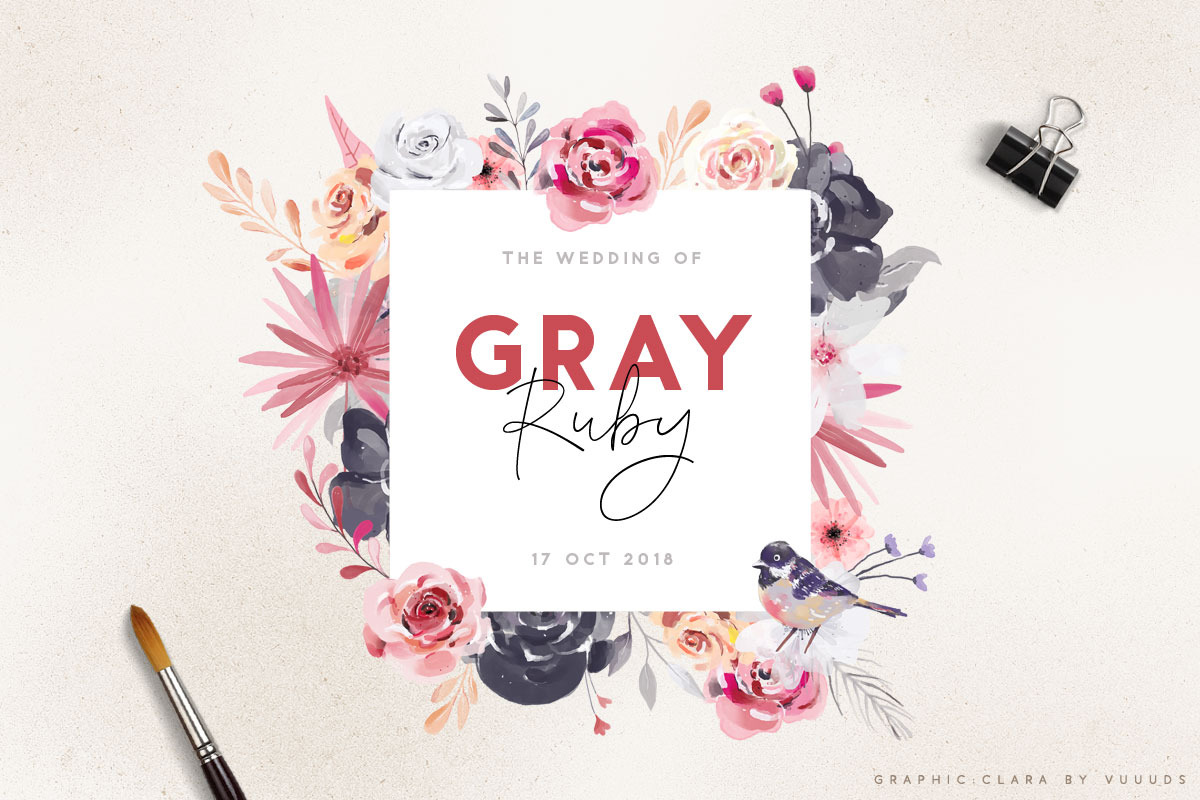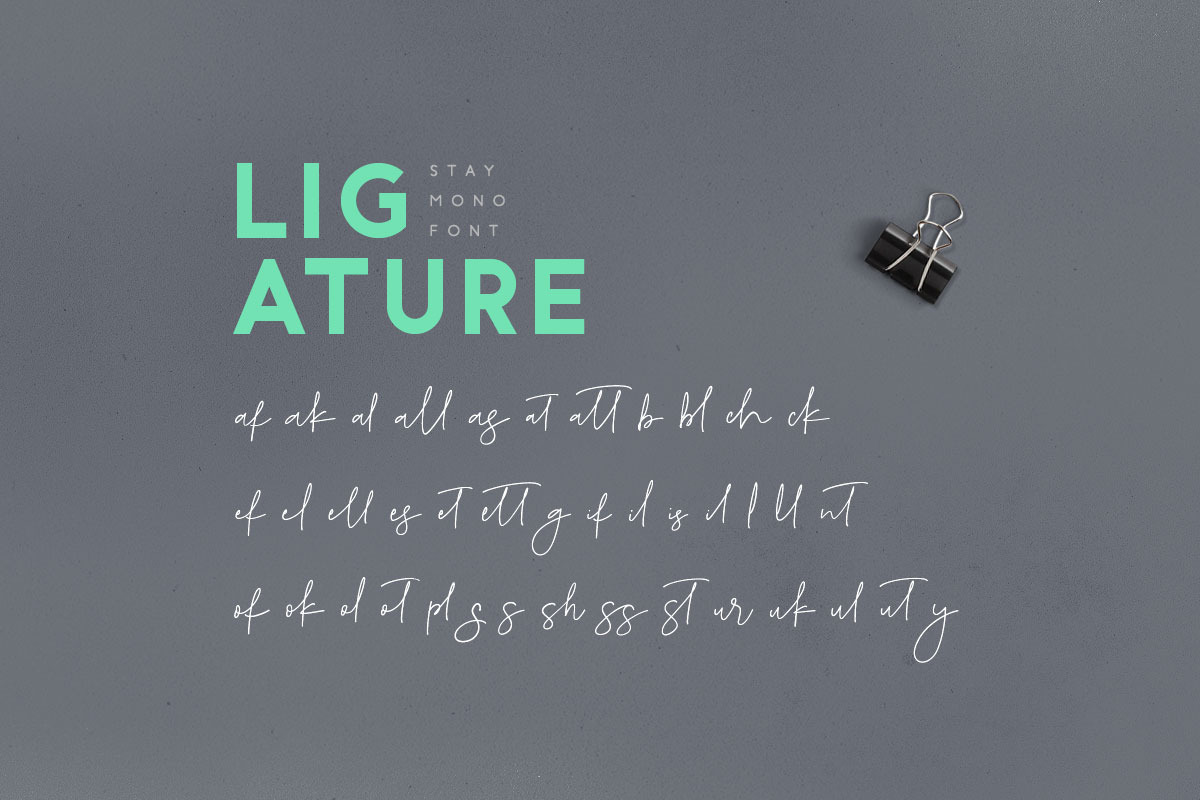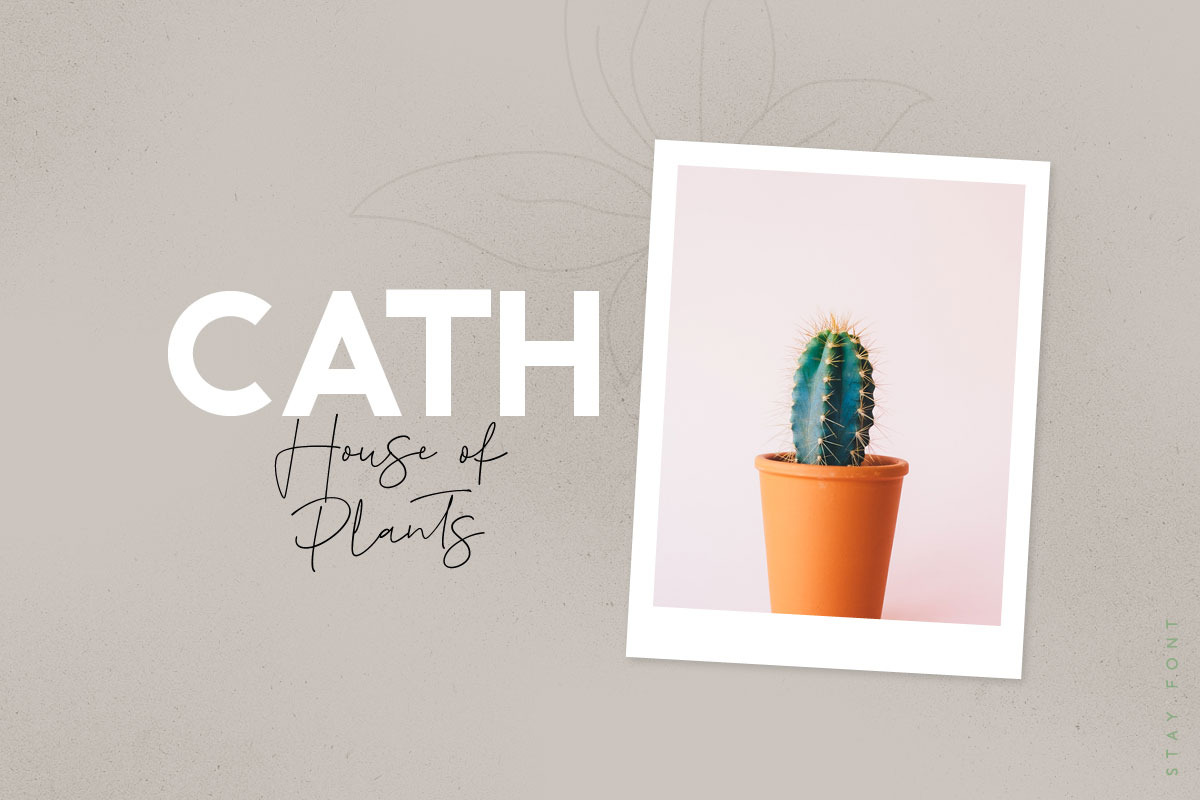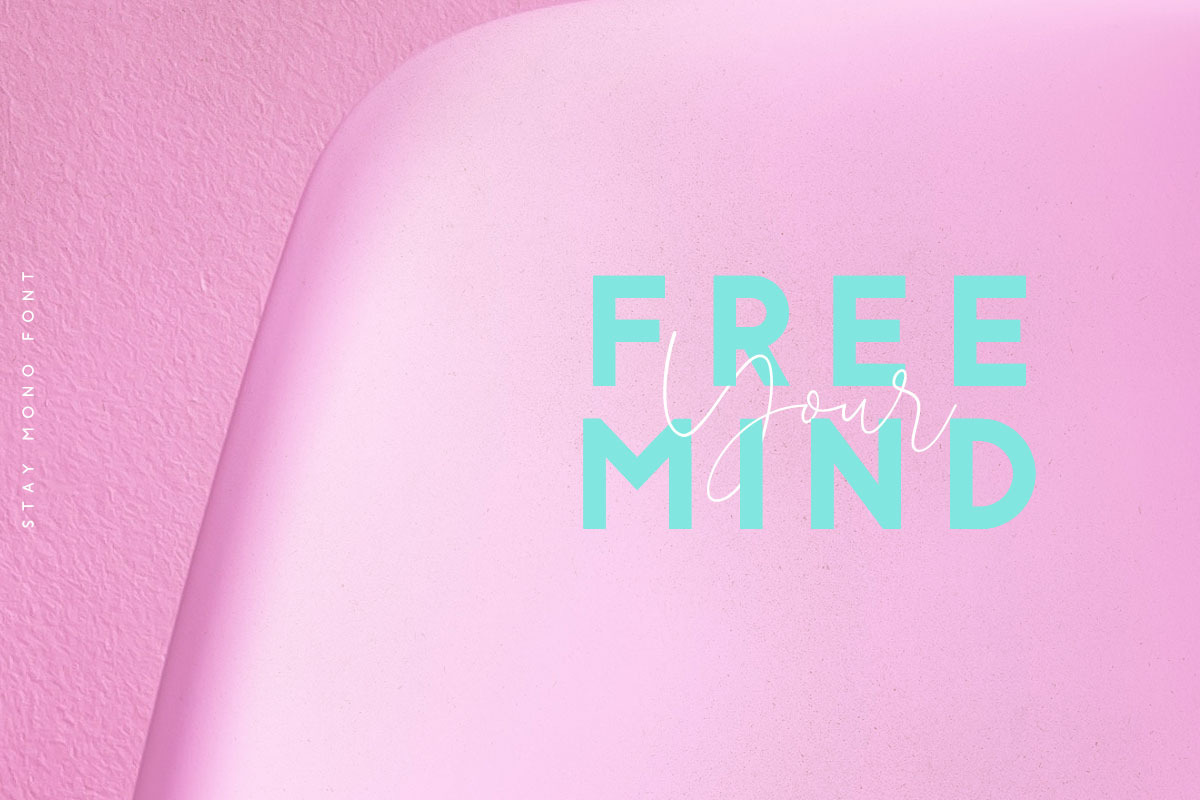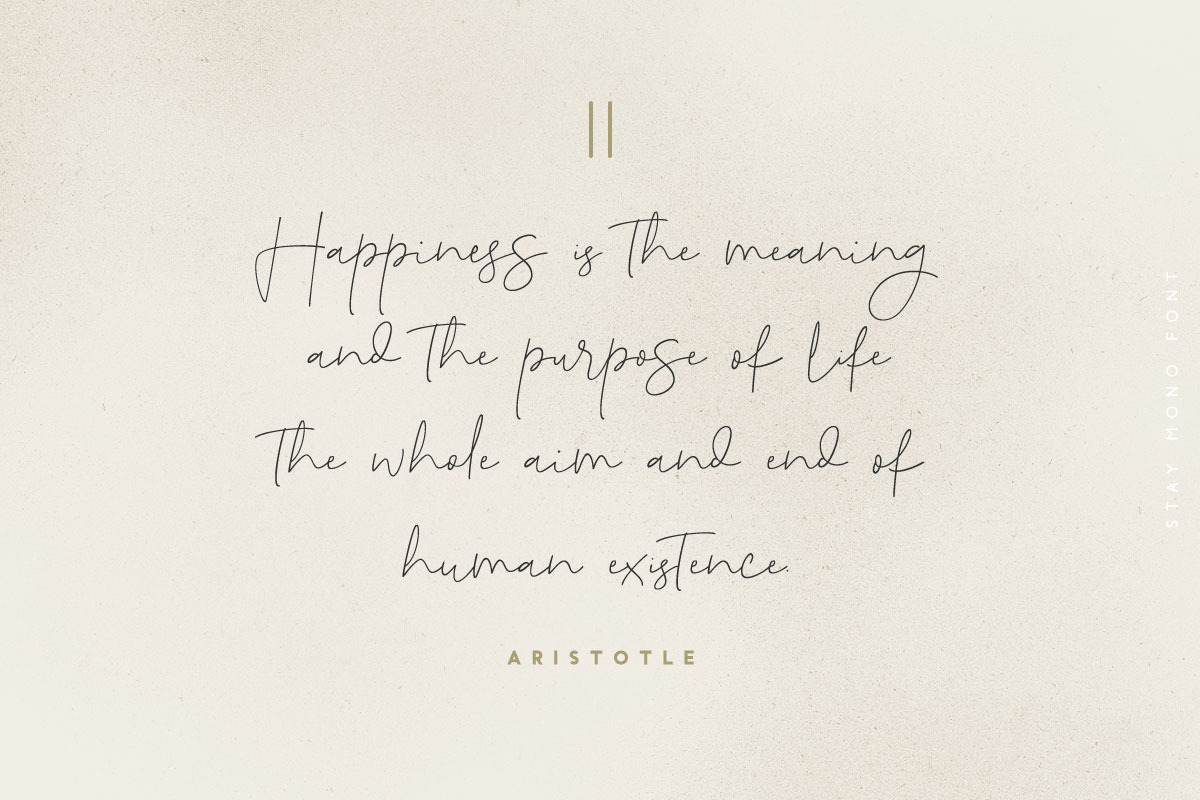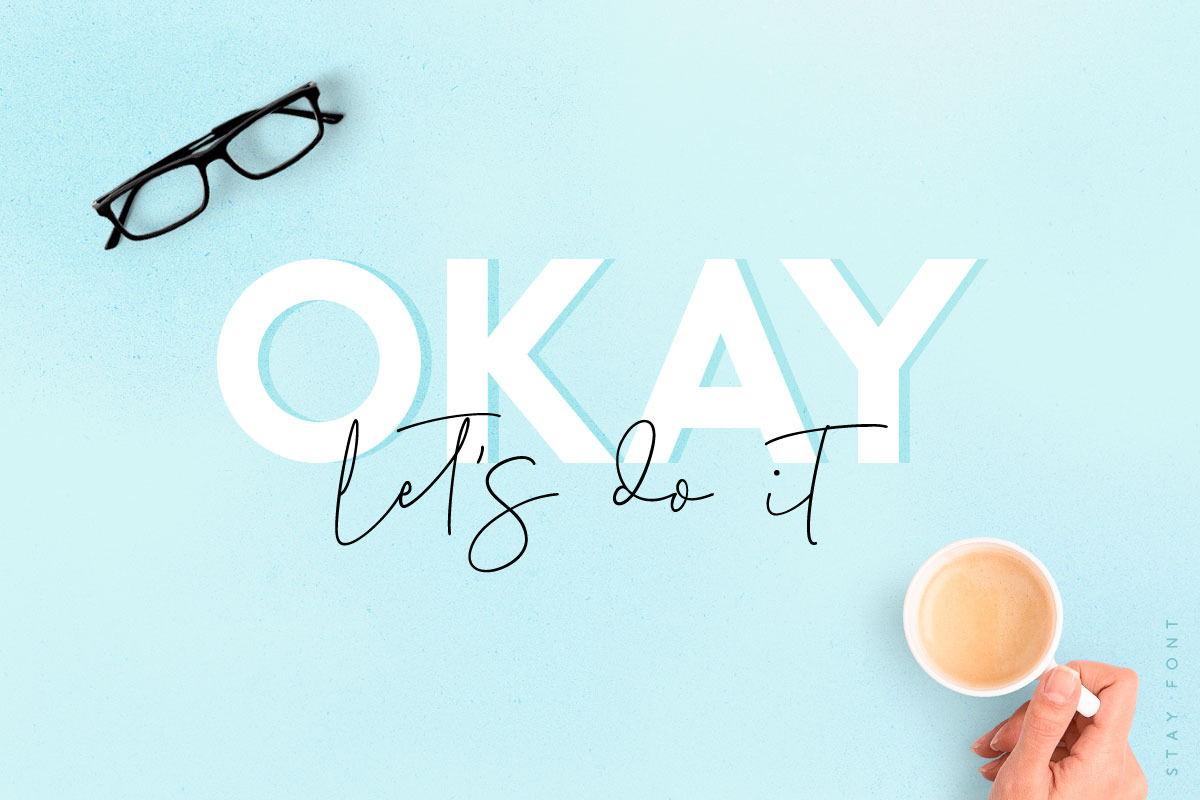
Stay MONO Font
Stay MONO is perfect font duo with two different character. Stay font with signature style and MONO come with bold sans serif style. Both fonts complete each other and works perfect together, make your text looks beautiful. With modern script style this font will perfect for many different project ex: Instagram post, signature logo, watermark, quote, blog header, poster, wedding, branding, logo, fashion, apparel, letter, invitation, stationery, etc.
Stay font ligature & alternate glyph: af ak al all as at att b bl ch ck ef el ell es et ett g if il is il l ll nt of ok ol ot pl s s sh ss st ur uk ul ut y
Stay font foreign languages support: ÀÁÂÃÄÅÆÇÈÉÊËÌÍÎÏÐÑÒÓÔÕÖØÙÚÛÜÝßàáâãäåæçèéêëìíîïðñòóôõöøùúûüýÿ
Why Stay MONO Font is worth a look
Stay MONO Font by vuuuds fits naturally into Branding, posters, packaging, typography.